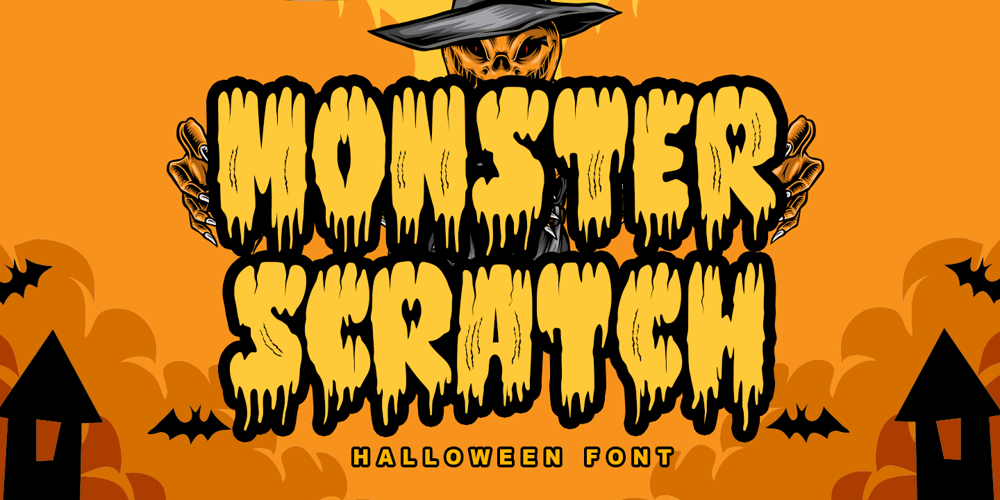
Monster Scratch Font Family was designed by Thomas Aradea and published by Letterara. Monster Scratch contains 2 styles and family package options. Monster Scratch is a display font created to complement each of your Halloween parties. Spooky and incredibly unique, this font will elevate each of your designs to the highest level. Add it to your Halloween crafts, horror movie posters, and anything else that requires a spectacular look. This font is PUA encoded which means you can access all of the glyphs.